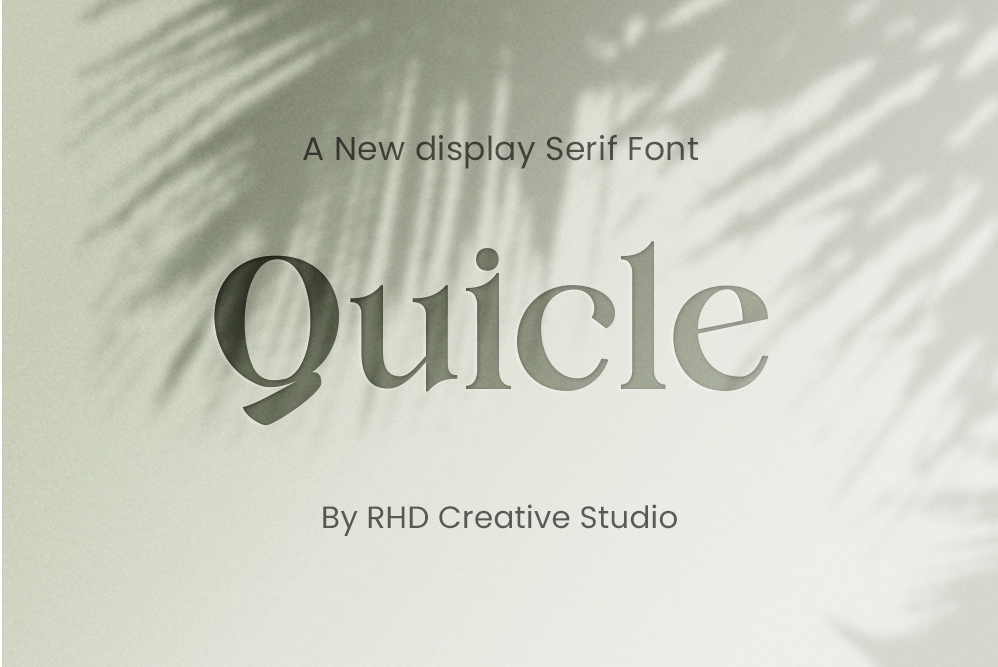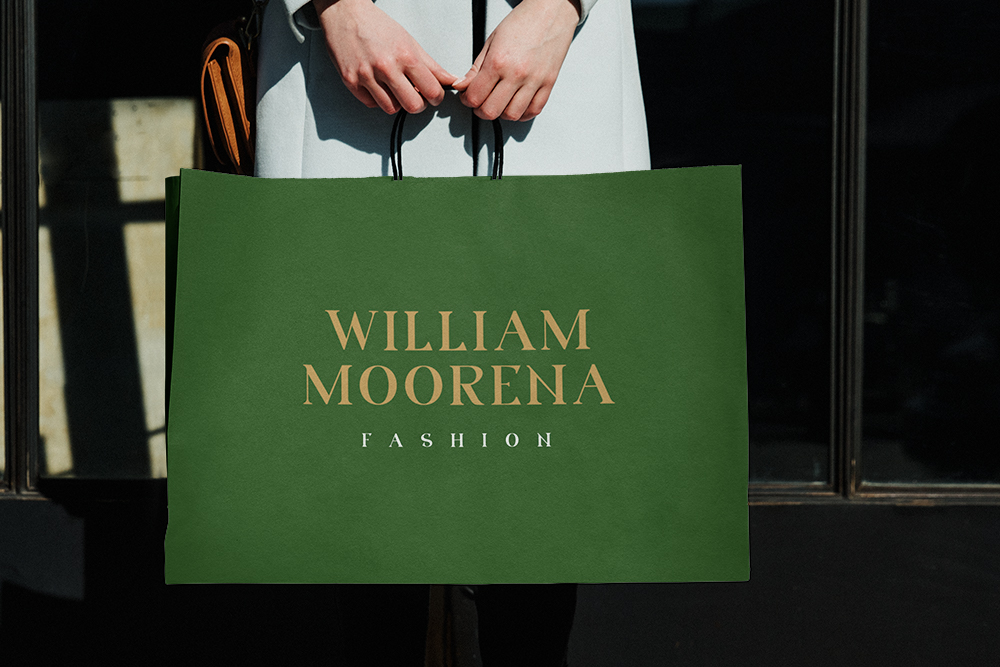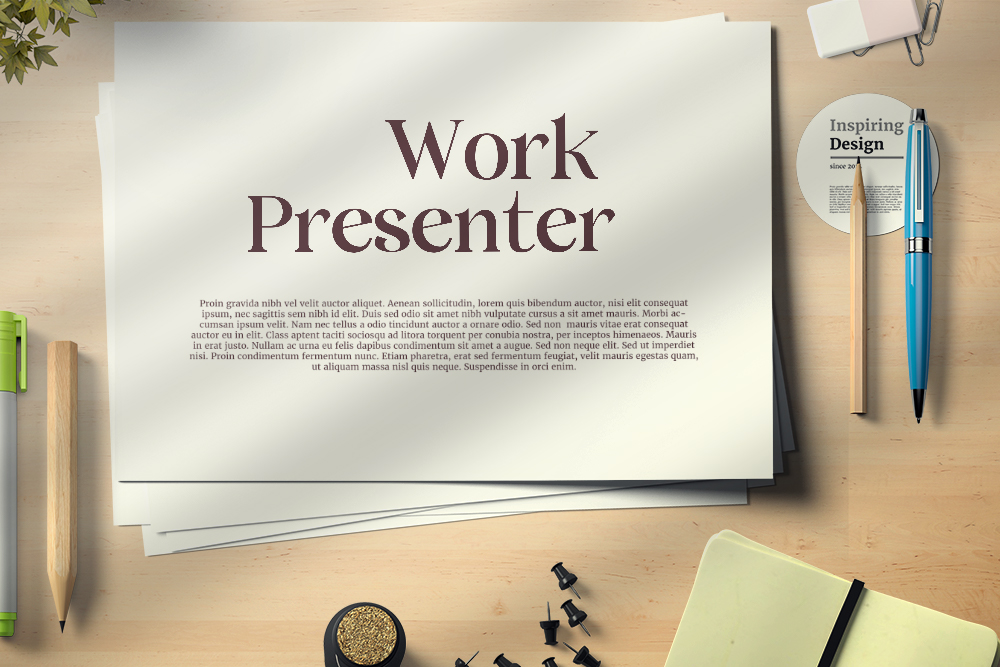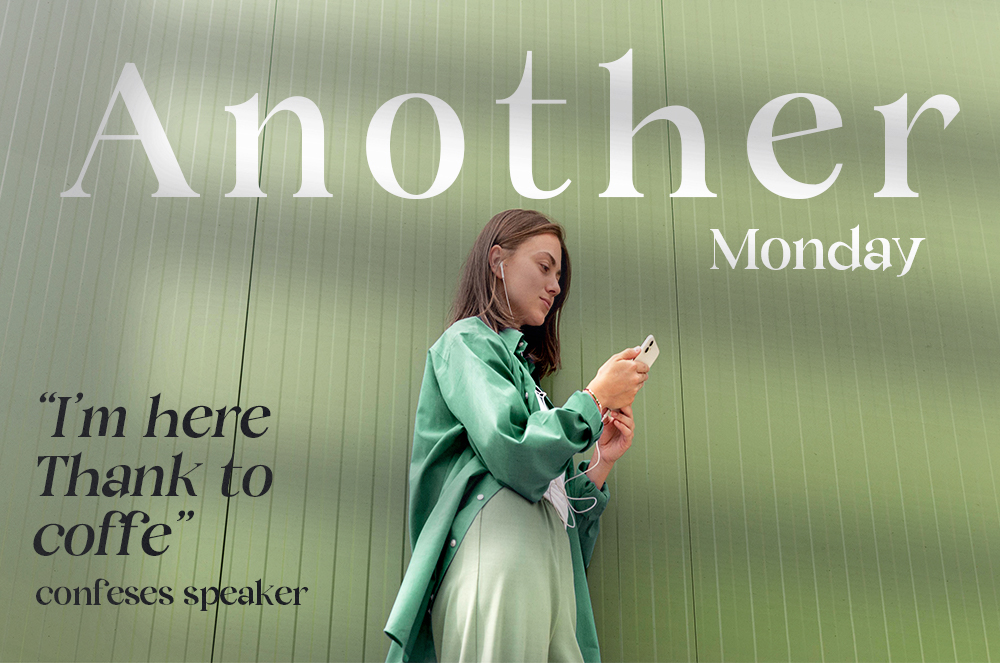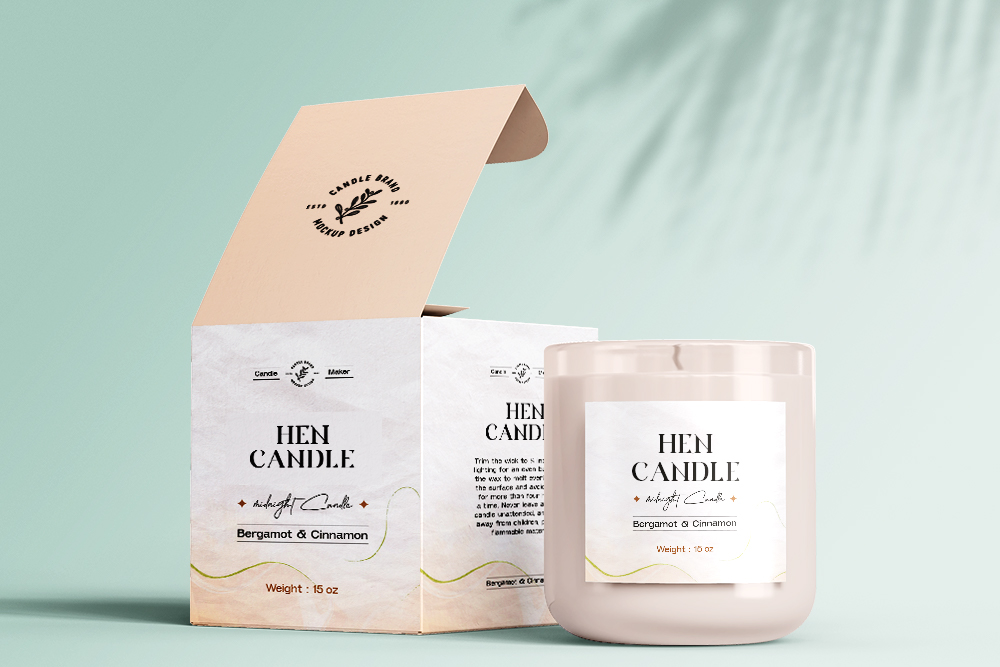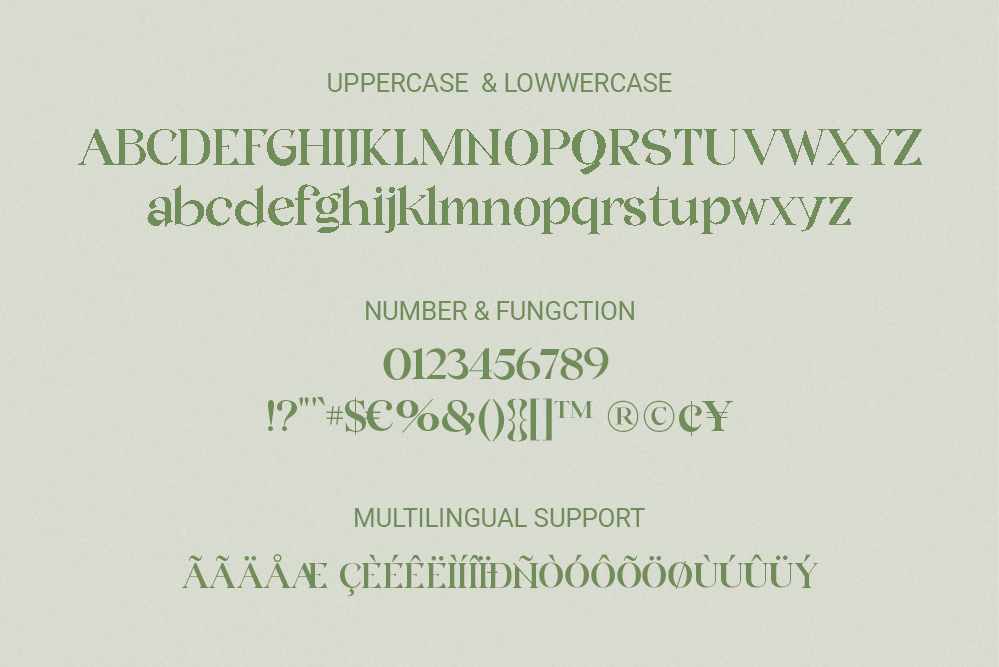
Hello everyone, I would like to introduce Quicle New Display Serif Font.
Quicle New Display Serif Font with Handmade character. Quicle bring New Display Serif, Modern font to make your design project stand out! Quicle is a perfectly choice for any creative endeavor, creating, modern, chic, lifestyle design such as logotype, title, cover, branding, invitations, wedding designs, display and magazine, social media posts, advertisements, printed quotes, product packaging, corporate brand, product designs, labels, photography, watermarks, special events and any other project with modern touch.
– Uppercase and Lowercase letters
– Numbering and Punctuations
– Ligarure
– Multilingual Support